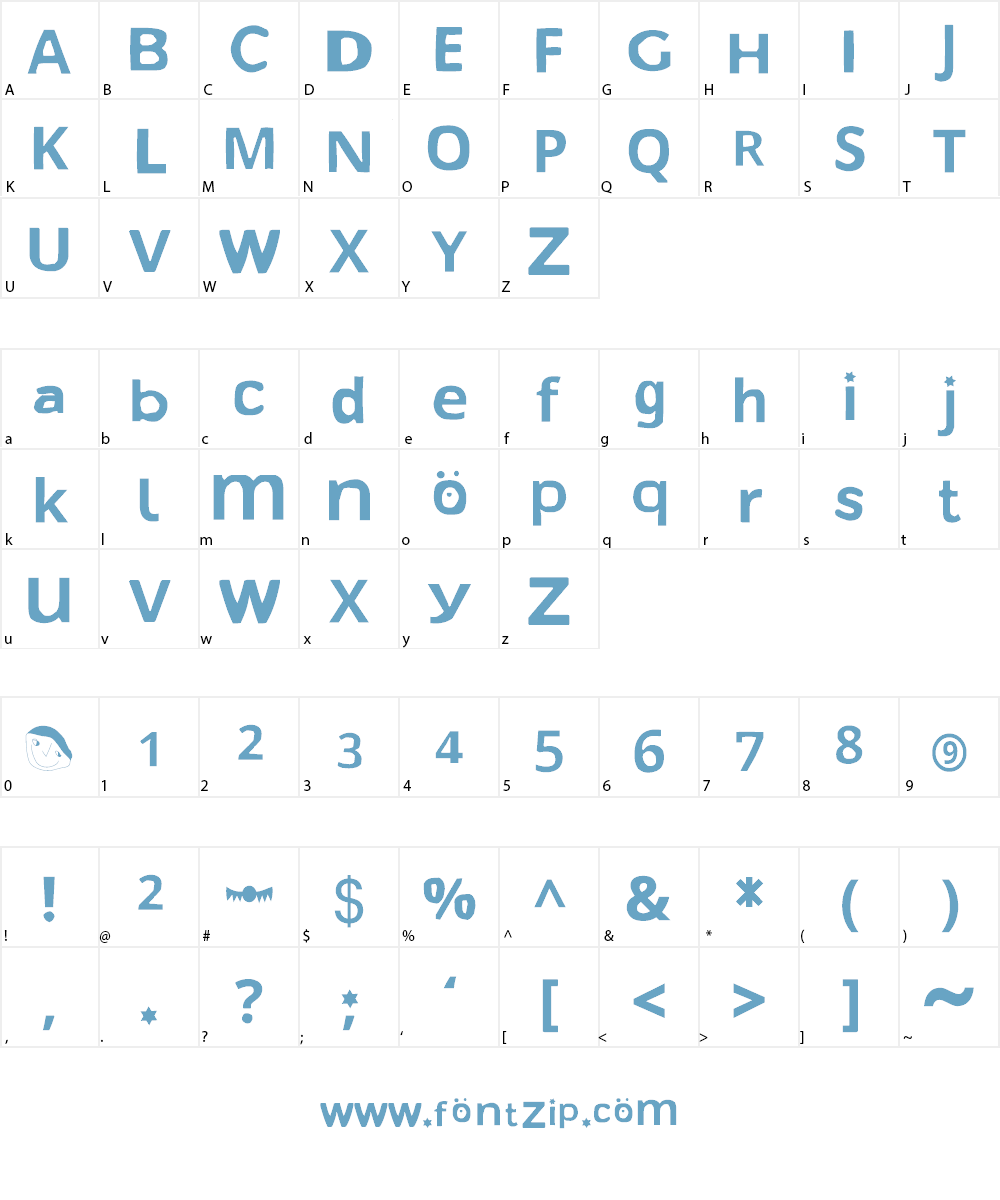
This is Open Kiddy Sans.
With the success of Open Shqip Sans, here is the second one that is based on Montserrat and Open Sans. I made the font "Open Kiddy Sans" for everyone.